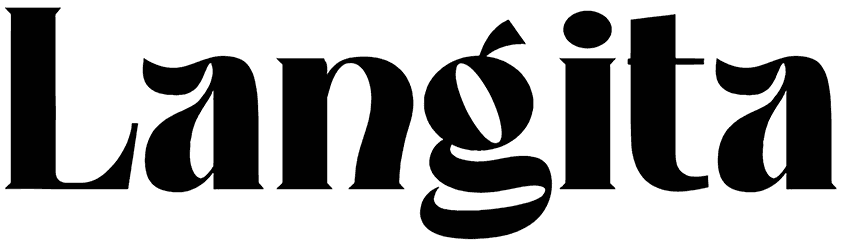
Langita Font
When you choose an elegant font like this one for your design, the final draft will be appealing. The letters of this unique serif font can reflect your specific taste. All you have to do is set the Langita font on the text of your designs, like a movie advertisement billboard, or anything else, and it will make them eye-catching.